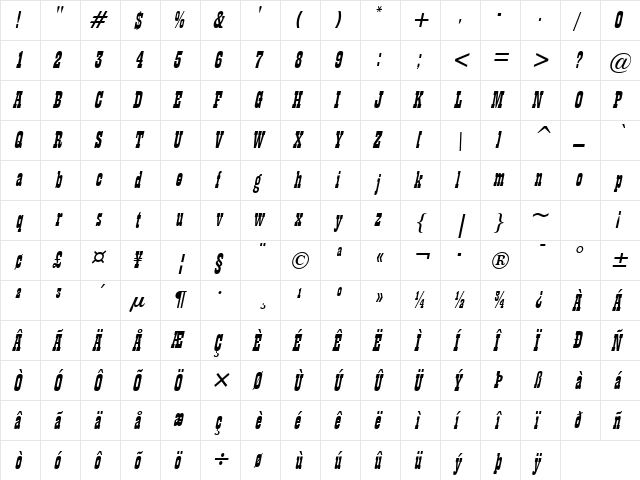
Billboard 11 Italic
Design Context for Billboard 11 Typeface
Billboard 11 offers clean, dependable letterforms without strong stylistic allegiance, making it a practical choice for designers who need flexibility. The slanted form adds forward momentum and visual energy.